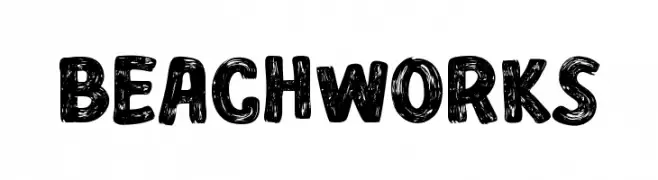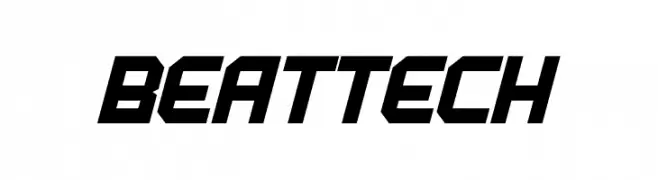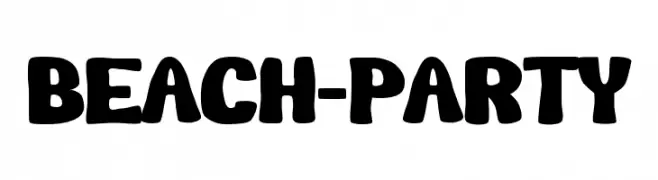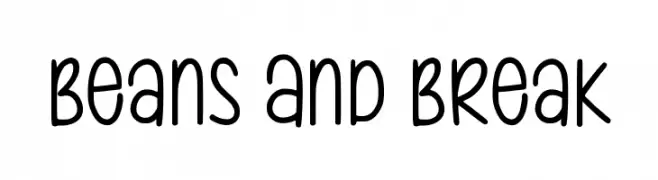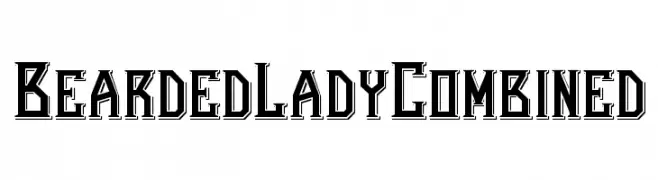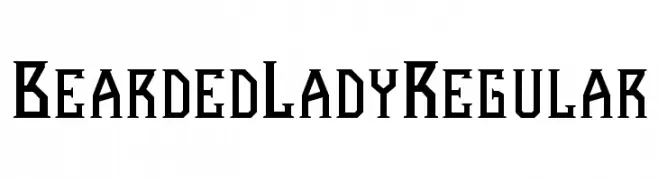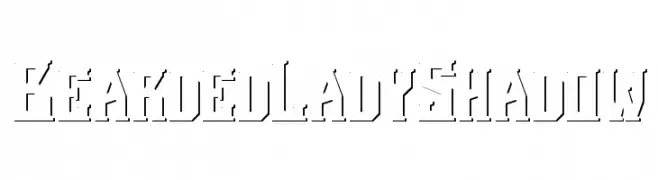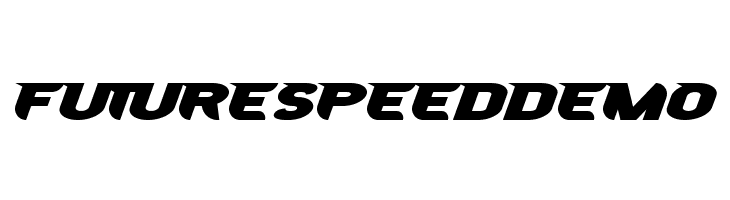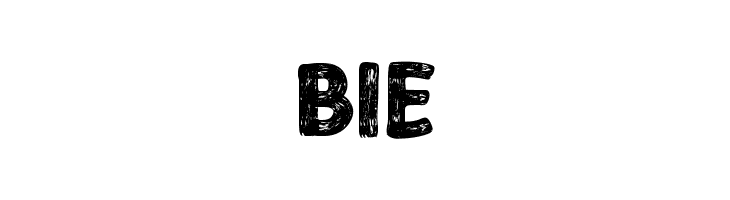
A playful and whimsical font with rounded, friendly letterforms.
A bold, playful font with a hand-drawn, casual style.
A bold, distressed font with a playful, vintage style.
A casual, handwritten font with a playful and approachable style.
A futuristic, angular font with a geometric design.
A futuristic, striped font with a digital, pixelated aesthetic.
A bold, angular font with a futuristic, geometric design.
A bold, geometric font with a futuristic, digital aesthetic.
A futuristic, pixelated font with a digital, high-tech aesthetic.
A futuristic striped font with a digital and modern aesthetic.
A futuristic font with thin vertical stripes creating a digital, modern look.
A futuristic, dotted font with a pixelated, ultra-light design.
A futuristic, geometric font with sharp angles and a bold, digital aesthetic.
A bold, geometric font with a futuristic and angular design.
A bold, flowing script font with elegant curves and dynamic slant.
A bold, space-themed decorative font with playful cosmic elements.
A classic serif font with high contrast and elegant strokes, perfect for formal use.
A modern, geometric sans-serif font with clean lines and uniform stroke width.
A modern, geometric sans-serif font with a condensed and uniform design.
A bold, expressive script font with high contrast and dynamic curves.
A bold, modern sans-serif font with clean lines and strong geometric shapes.
A high-contrast, elegant serif font with bold uppercase and smooth lowercase letters.
A playful, bold font with rounded strokes and a hand-drawn feel.
Elegant, high-contrast decorative script with flowing strokes.
A bold, playful font with a hand-drawn, informal style.
A modern, high-contrast serif font with elegant, elongated characters.
A bold, jagged font with a dynamic, hand-drawn appearance.
A playful, handwritten script font with bold, rounded characters.
A bold serif font with a classic and authoritative style.
A bold, playful font with thick strokes and a modern, decorative style.
A playful, casual handwritten font with tall, narrow letters and a slight slant.
A bold, modern sans-serif font with clean lines and balanced proportions.
A modern, italicized sans-serif font with smooth, consistent strokes.